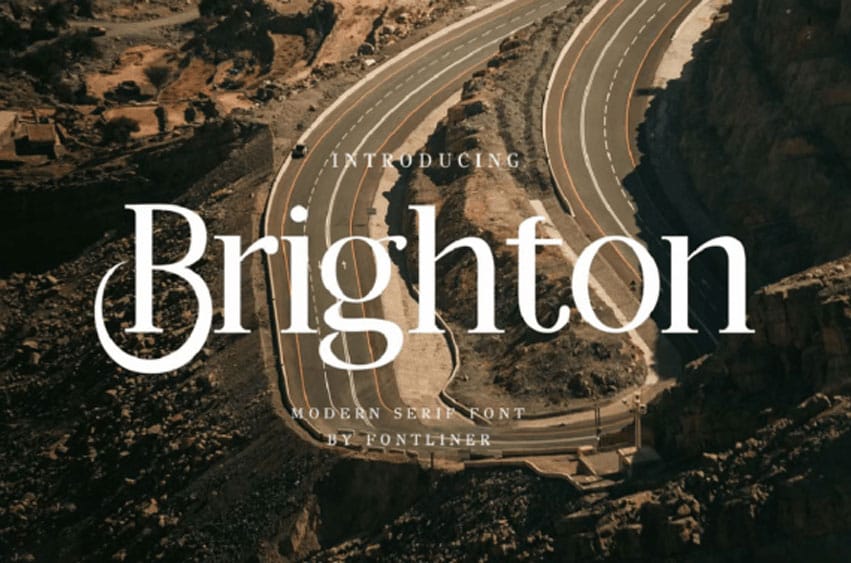
Brighton Font is a modern serif font with an elegant and clean design. Its bold yet artistic characteristics make it perfect for various design needs, from branding to editorial work.
Combining a classic touch with a contemporary style, Brighton delivers a professional, luxurious, and highly readable impression. This font is ideal for logos, headlines, invitations, and other creative projects requiring standout visuals.